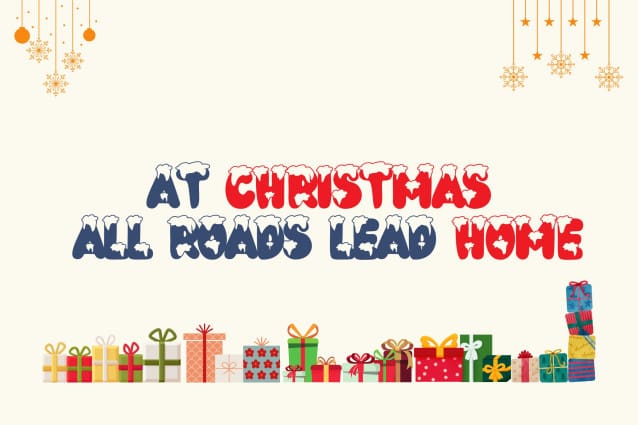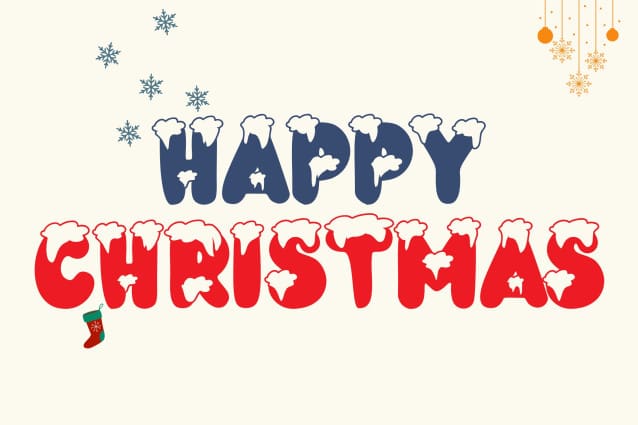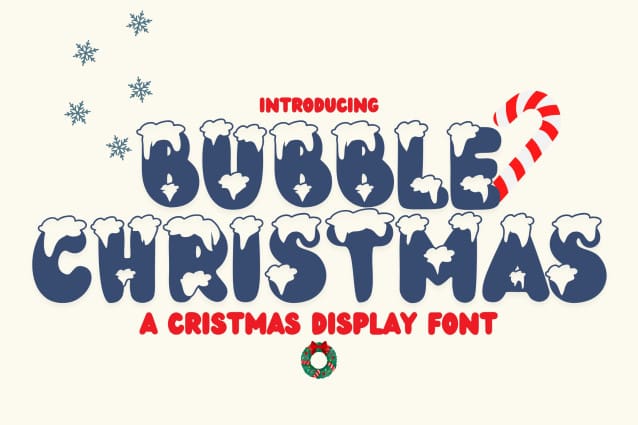
Bubble Christmas Typeface
Bubble Christmas Typeface, a cheerful and festive display font that brings the magic and joy of the holiday season to your designs. Perfect for holiday cards, posters, branding, and creative projects, this font features a bold and bubbly style that captures the whimsical spirit of Christmas. Whether you’re creating Christmas-themed graphics, social media posts, or eye-catching advertisements, Bubble Christmas adds a fun and dynamic touch to your work.